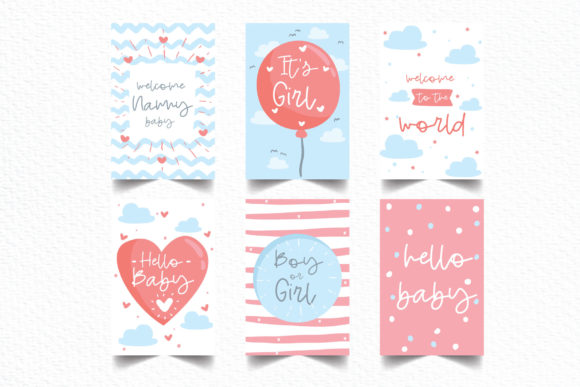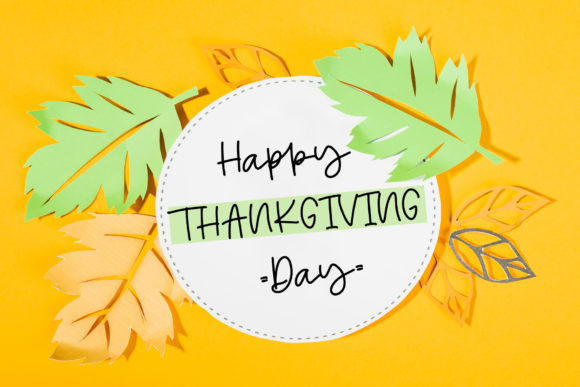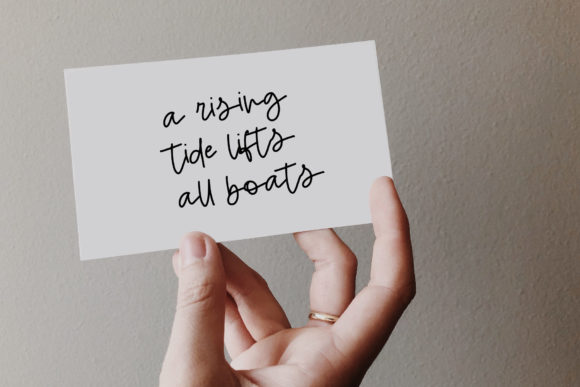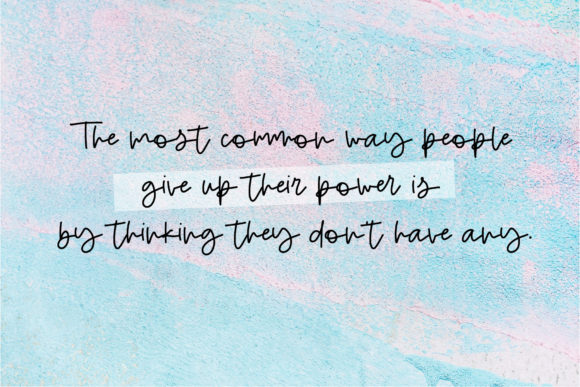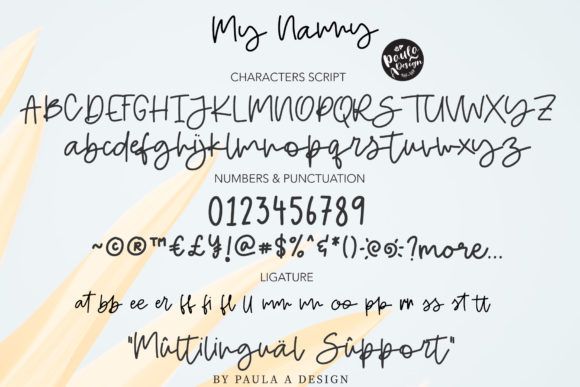
My Nanny Font
About My Nanny Font
My Nanny is a chic and simple font perfect for high impact headlines.
Every single letter has been carefully and perfectly paired into a playful creative font. The My Nanny font is the perfect script designed for making your invites, brand, blog posts and much more.